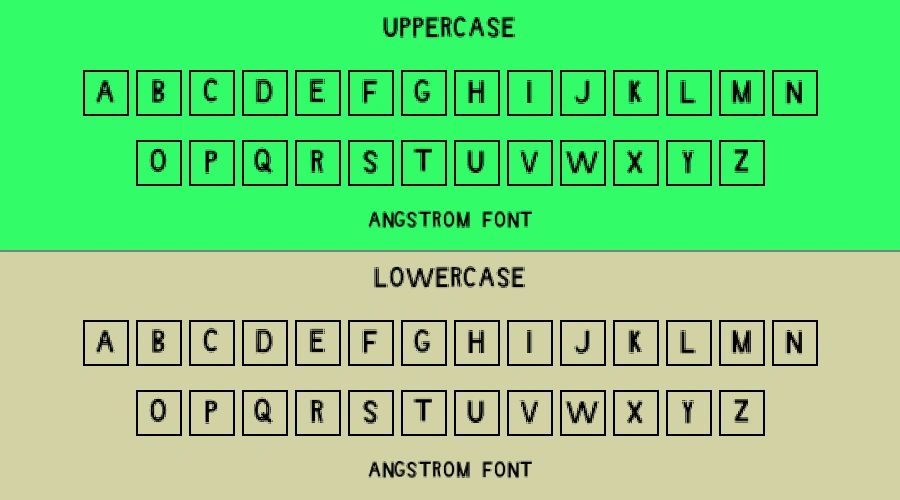
About Angstrom Font
Angstrom Font stands out for its distinctive combination of transitional forms and reliability. Ideal for architectural plans, it provides the value and aesthetic excellence that professional projects demand. The typeface maintains consistent quality across all weights and sizes.
Key features include refined fluid connections and practical technical characters, enhancing typographic expression. In campaign headers applications, Angstrom Font demonstrates exceptional detail preservation. The joint construction and engineering heritage contribute to its distinctive character and professional appeal.